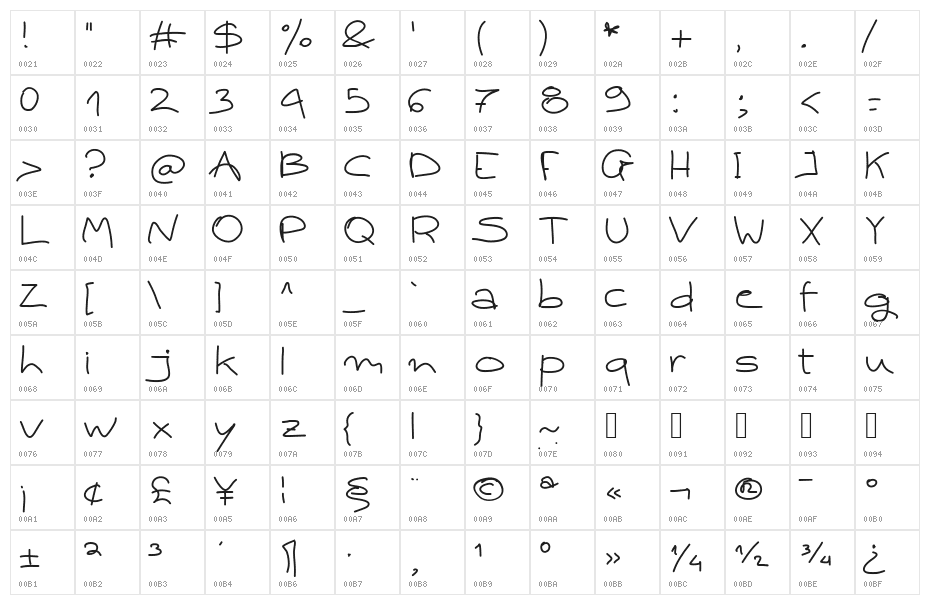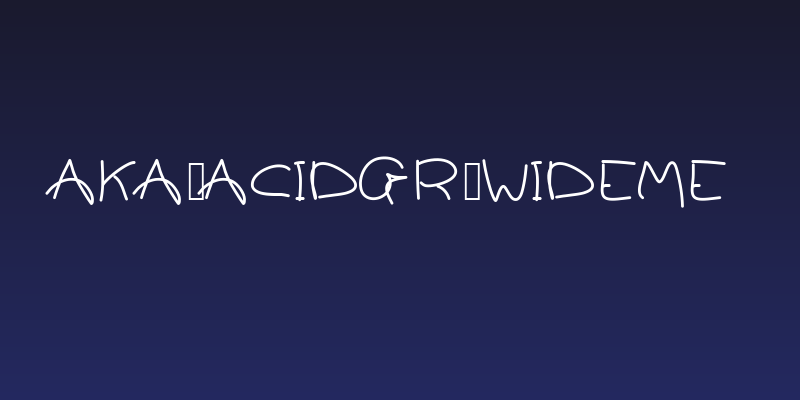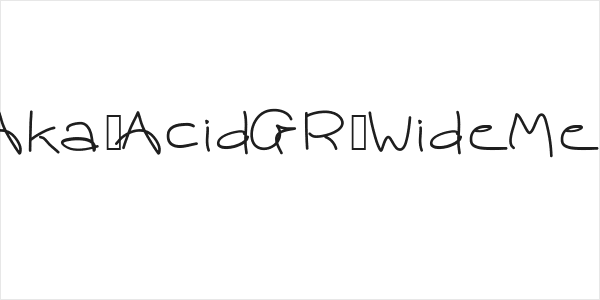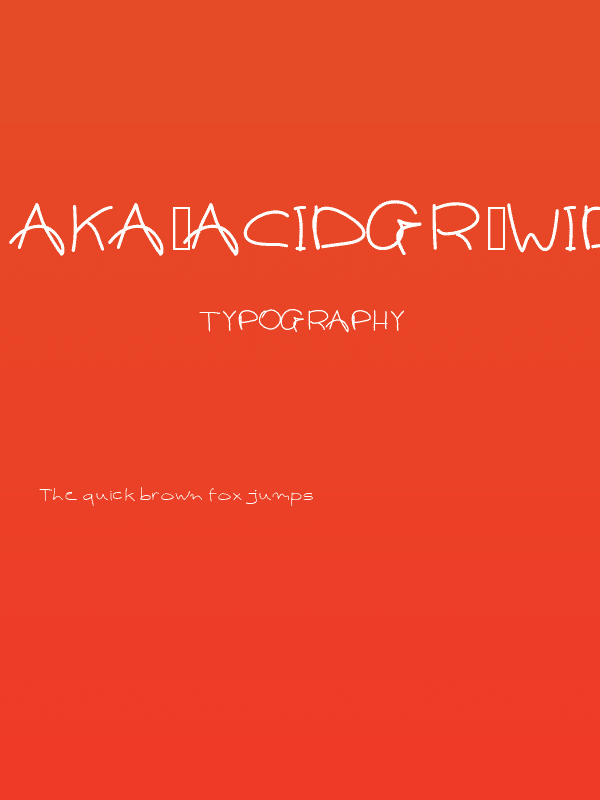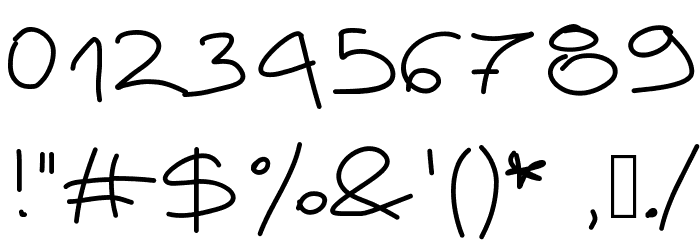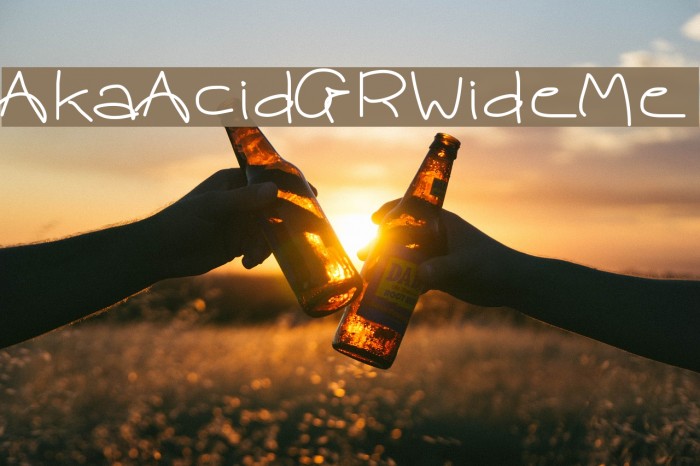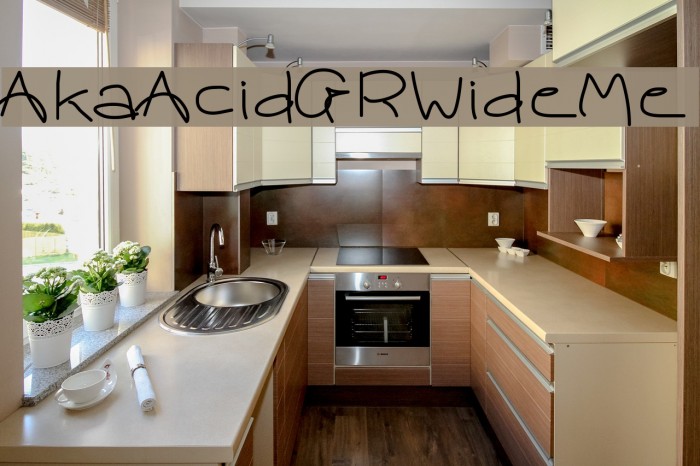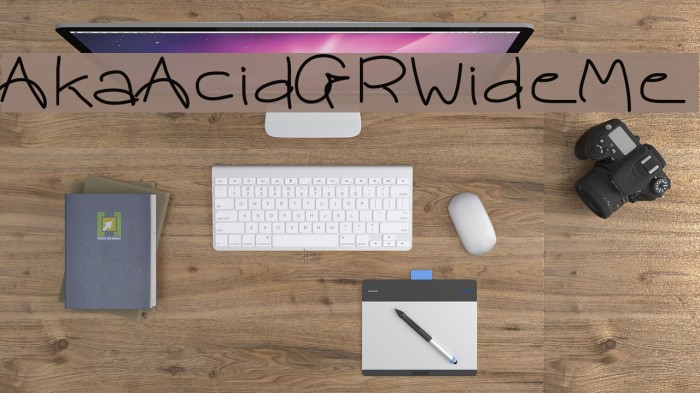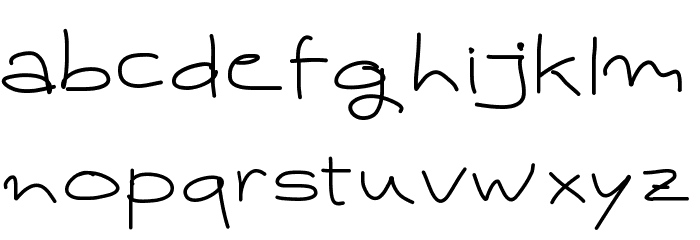
Aka-AcidGR-WideMe Font
This font features a playful and casual handwritten style, characterized by its irregular and slightly uneven strokes. The letters have a natural flow, giving them a relaxed and informal appearance. The uppercase and lowercase letters maintain a consistent style, with rounded edges and a slight tilt that adds to the whimsical feel. The numerals and special characters follow the same design principles, ensuring a cohesive look across all characters. This font is perfect for projects that require a personal touch or a creative flair.
| Proposed Projects | Ideal for greeting cards, children's books, casual invitations, and creative branding. |